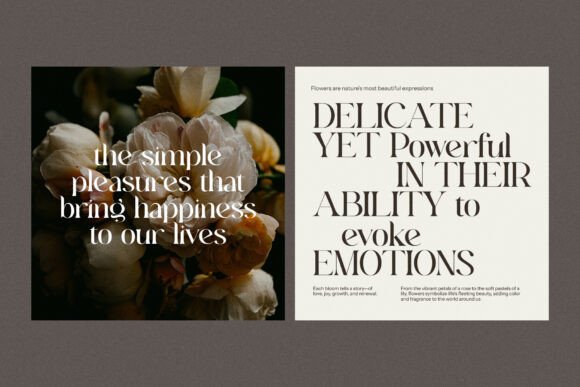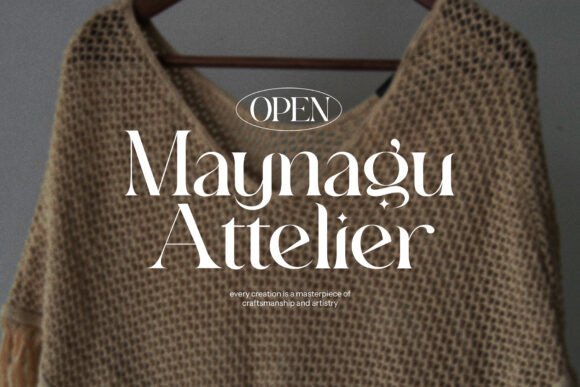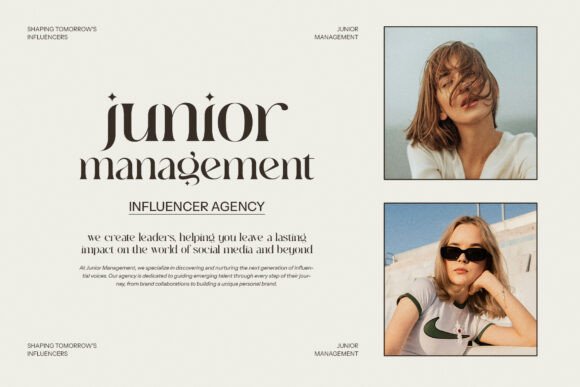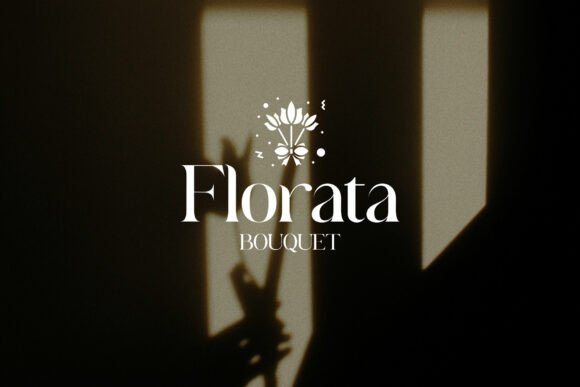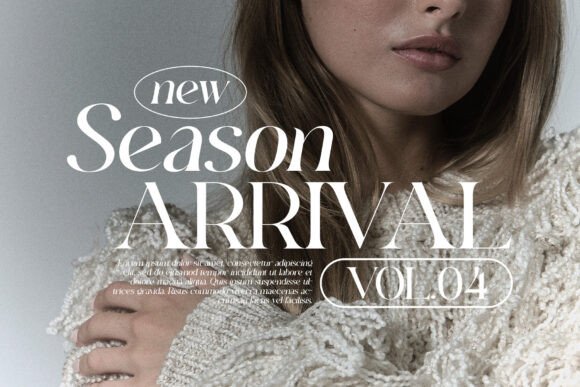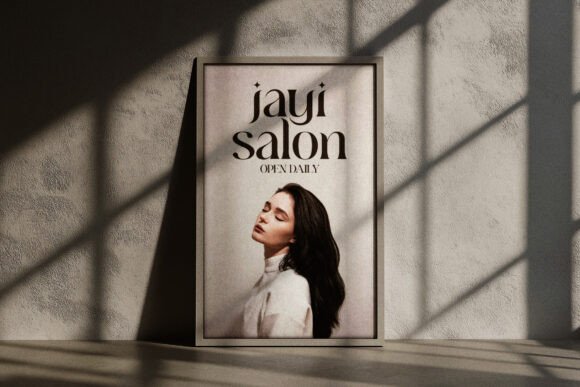
Bingo Font: Elevate Your Designs with Elegance and Sophistication
In the world of design, fonts play a crucial role in conveying the tone and personality of a brand or project. If you’re looking for a font that exudes luxury, refinement, and sophistication, look no further than the Bingo Font. This stunning serif font is crafted to bring a touch of elegance to any design, making it perfect for branding, logos, and a wide range of creative projects.
A Luxurious Serif Style
The Bingo Font boasts a luxurious serif style that is sure to elevate your designs to new heights. Its classic and timeless look makes it an excellent choice for designers and crafters who want to create high-end branding, logos, and marketing materials. The font’s serif style adds a level of sophistication and refinement, making it perfect for projects where readability and presentation are essential.
Distinctive Ligatures and Alternate Options
One of the standout features of the Bingo Font is its variety of distinctive ligatures and alternate options. These unique features allow designers to add a touch of personality to their designs, making each project truly one-of-a-kind. With a range of ligatures and alternates to choose from, you can experiment with different combinations to create a look that is uniquely yours.
Diverse Applications
The Bingo Font is incredibly versatile and can be used in a wide range of applications. Whether you’re working on branding projects, logos, social media graphics, advertisements, labels, product packaging, photography, wedding designs, watermarks, invitations, stationery, or any other project where readability and presentation are crucial, this font is an excellent choice.
The Bingo Font is a dream come true for designers and crafters who want to create high-quality, visually stunning designs. Its luxurious serif style, distinctive ligatures, and alternate options make it an excellent choice for anyone looking to add a touch of elegance and sophistication to their projects. Whether you’re a seasoned designer or a crafty DIY enthusiast, this font is sure to become a staple in your design toolkit.
Why Choose the Bingo Font?
So why choose the Bingo Font over other fonts on the market? Here are just a few reasons why this font stands out:
- Elegance and sophistication: The Bingo Font offers a level of luxury and refinement that is hard to find in other fonts.
- Versatility: This font can be used in a wide range of applications, from branding and logos to social media graphics and wedding designs.
- Unique ligatures and alternates: The Bingo Font features a variety of distinctive ligatures and alternate options, allowing designers to add a touch of personality to their designs.
- Readability and presentation: This font is designed to be highly readable, making it perfect for projects where presentation is essential.
In conclusion, the Bingo Font is an exceptional choice for designers and crafters who want to add a touch of elegance and sophistication to their projects. Its luxurious serif style, distinctive ligatures, and alternate options make it an excellent choice for a wide range of applications. Whether you’re working on branding projects, logos, social media graphics, or any other design project, this font is sure to elevate your designs to new heights.